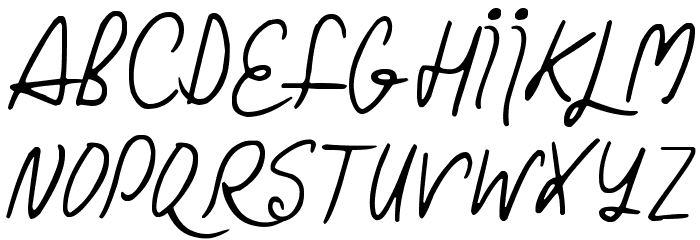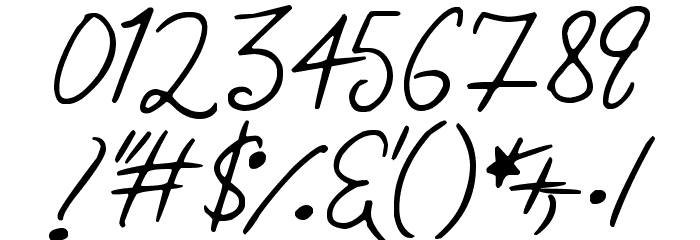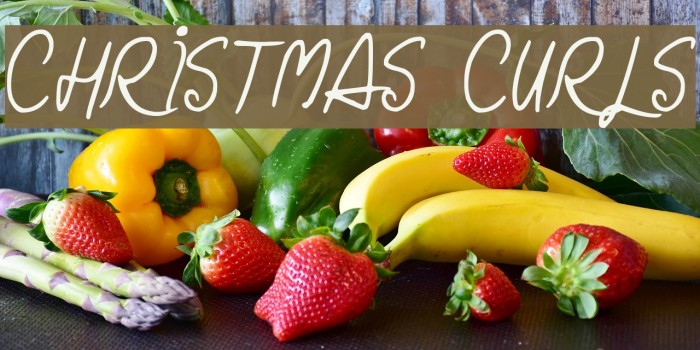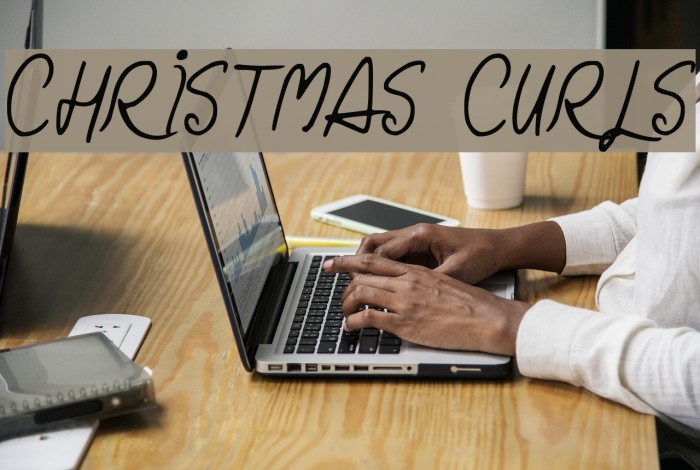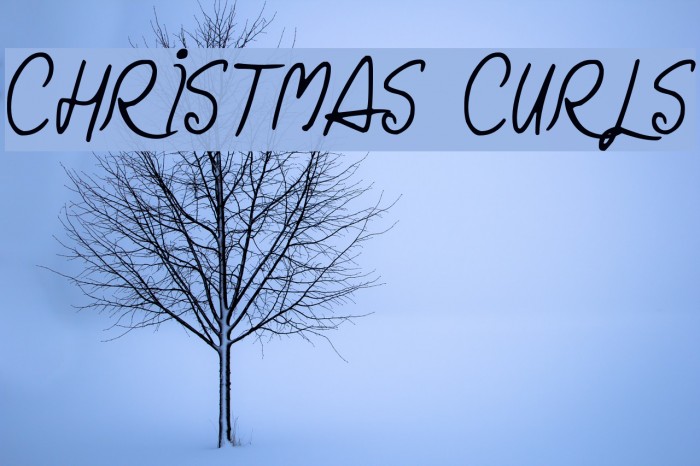
Christmas Curls Font
This font exudes a playful and whimsical charm with its curly, handwritten style. Each character is crafted with a lively flair, featuring loops and swirls that give it a festive and joyful appearance. The strokes are smooth and fluid, creating a sense of movement and energy. The uppercase and lowercase letters maintain a consistent style, while the numerals and special characters blend seamlessly with the overall design. This font is perfect for adding a touch of fun and creativity to any project, making it ideal for holiday-themed designs, invitations, and greeting cards.
A playful, curly handwritten font with a festive and whimsical style.
- Proposed Projects: Ideal for holiday-themed designs, greeting cards, invitations, and playful branding.
- Use Case: Headlines, Invitations, Greeting Cards